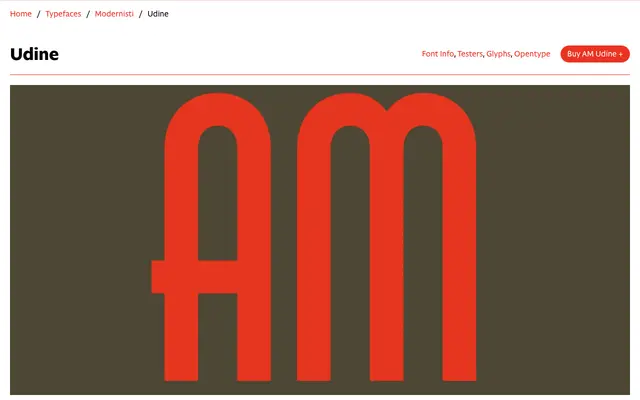
AM Udine
CAST · Michele Patanè · 2024
AM Udine specimen from CAST
A digital revival of a 1933 Nebiolo wood-type design, reconstructing the all-caps, monolinear geometry of the original with careful optical refinements by Michele Patanè.
Originally produced as a wood type by the Turinese Nebiolo foundry and first catalogued in 1933, Udine is an all-caps sans whose entire alphabet is constructed from the modular forms of H and O. Patanè's revival tightens horizontal stroke weights and smooths curve transitions to compensate for on-screen optical distortion while preserving the rigid, analogue stiffness of the source material. OpenType features reinstate the original negative-shape characters and decorative title pieces, making the revival functionally complete.
An all-caps, monolinear, modular sans with narrow proportions and geometric construction rooted in Art Deco wood-type tradition; its single weight and display-only character place it firmly in the display category.